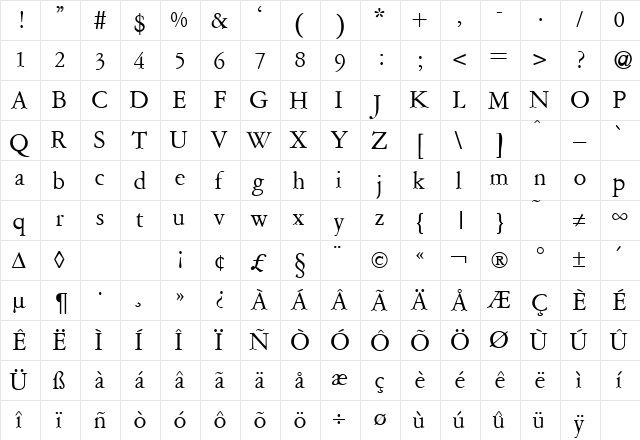
AmsterdamerGaramont Regular
Design Context for AmsterdamerGaramont Typeface
AmsterdamerGaramont takes a measured approach to typography — its balanced proportions and neutral character make it a reliable workhorse for both digital and print work.